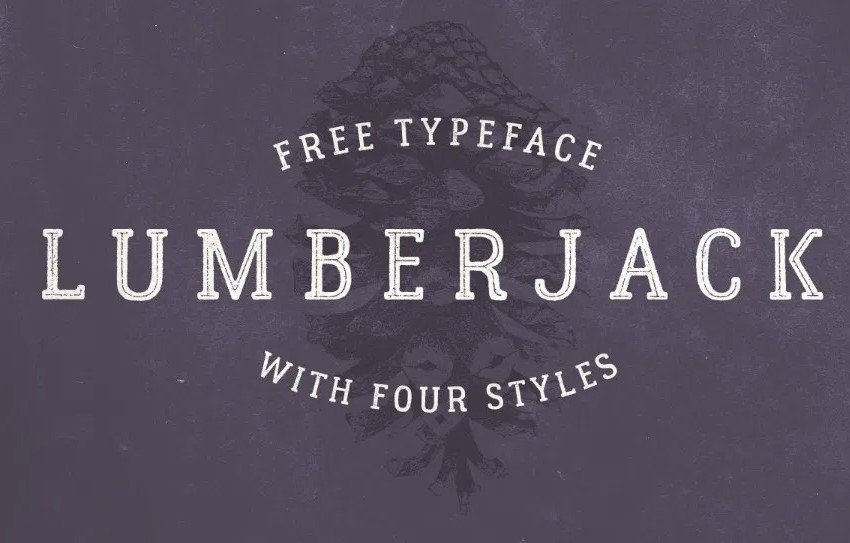
Lumberjack Font Free Download
We are excited to present the stunning Lumberjack Font, a display typeface available in four distinctive and elegant styles: regular, rough, inline, and shadow. This font boasts exceptional texture and ligatures, enhancing the smoothness and appeal of your designs.
The font was designed by Aleksei Kalinin who draws the typeface of this font elegant and smartly and provided it for everyone’s use. The font looks good in all types of headings, posters, and covers also.
Lumber Font contains a larger numbers of textures, glyphs and preferably it is prime for presentations and moral videos.
This unque and elegant font that is suitable to use with concert one font which has a popular texture so that can also be used in pairing also. That’s why each designer treated it as a really perfect font in all appreciate.
• Public transportation navigation
• Game interfaces
• Presentations
• Magazine and newspaper ads
• Brochures (print and digital)
• Animated logos
• Signage and trade show displays